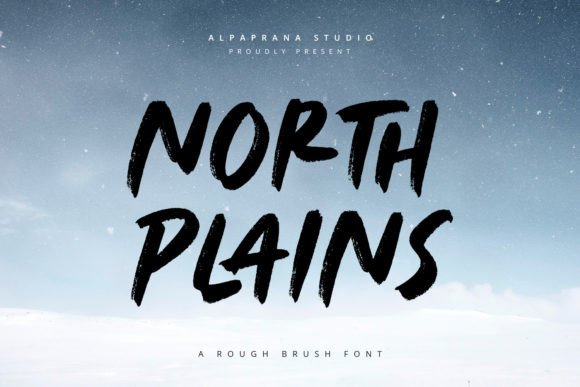
Welcome to the realm of typography, where imagination meets expression! Introducing North Plains Font, a superb masterpiece handcrafted by alpapranastudio. This alluring script font boasts an untamed charm that breathes life into your creative endeavors.
North Plains Font: A Journey Through Authenticity
Experience the allure of authenticity with North Plains Font. Its rugged brush strokes evoke a raw and natural aesthetic, reminiscent of hand-painted signage. This font seamlessly blends modern and vintage elements, making it both timeless and contemporary. Whether you're designing logos, branding your creations, or crafting captivating posters, North Plains Font will elevate your designs to new heights.
Unleash the Power of Storytelling
With North Plains Font, storytelling takes center stage. Its meticulously crafted characters possess a captivating charm that invites readers to delve deeper into your narrative. Each letter dances across the page, forming words that resonate with emotion and authenticity. From heartfelt letters to captivating marketing campaigns, North Plains Font will infuse your words with a touch of magic.
A Versatile Star for Creative Endeavors
North Plains Font knows no boundaries when it comes to creative expression. Its versatility shines in a myriad of applications, from eye-catching logos and branding to striking posters and magazine designs. The possibilities are limitless, allowing you to unleash your creativity and leave an unforgettable mark. Whether you're a seasoned designer or just starting your artistic journey, North Plains Font will be your trusted companion.
Embrace the North Plains Font Experience
Join the ranks of creative visionaries who have discovered the power of North Plains Font. Let your imagination run wild as you explore the endless possibilities it presents. Transform your designs into captivating masterpieces that captivate and inspire. Embrace the North Plains Font experience today and unlock a world of boundless creativity.